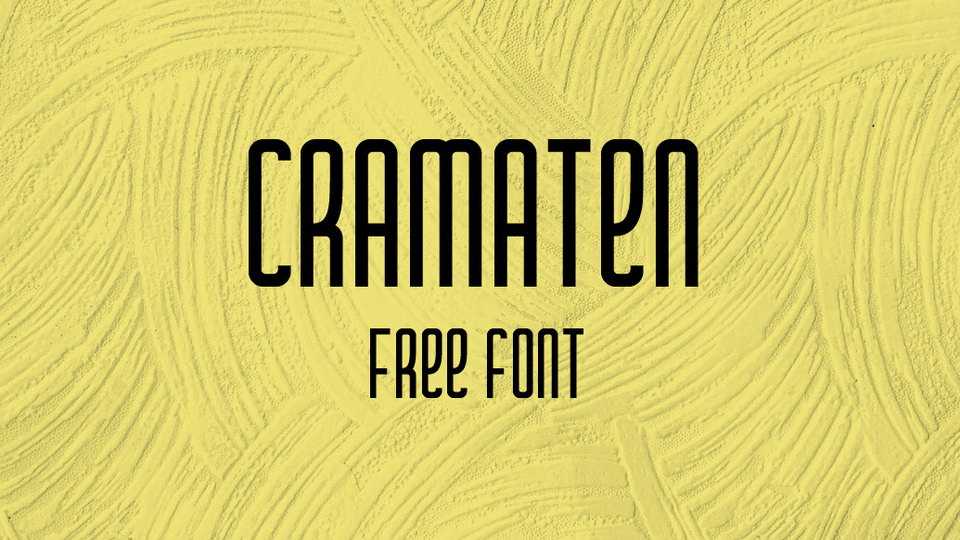
Download Cramaten font, a condensed display typeface with Latin and Cyrillic support. Cramaten font is perfect for posters, headlines, signage, logo, badges, prints and other artworks.
Designer: Denis Ignatov